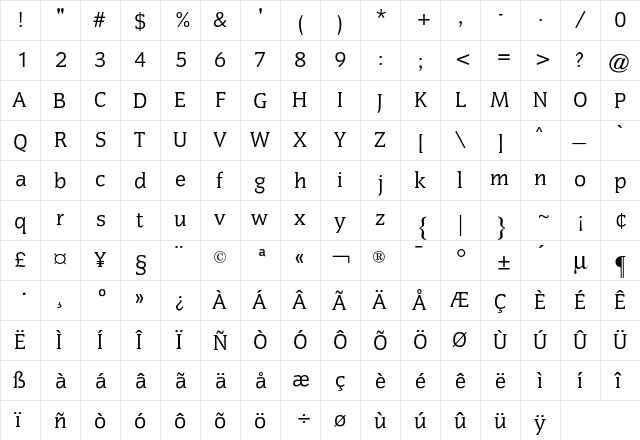
Congress CG Regular
Design Context for Congress CG Typeface
Congress CG is a composed and adaptable typeface that performs quietly and consistently across a wide range of design contexts.